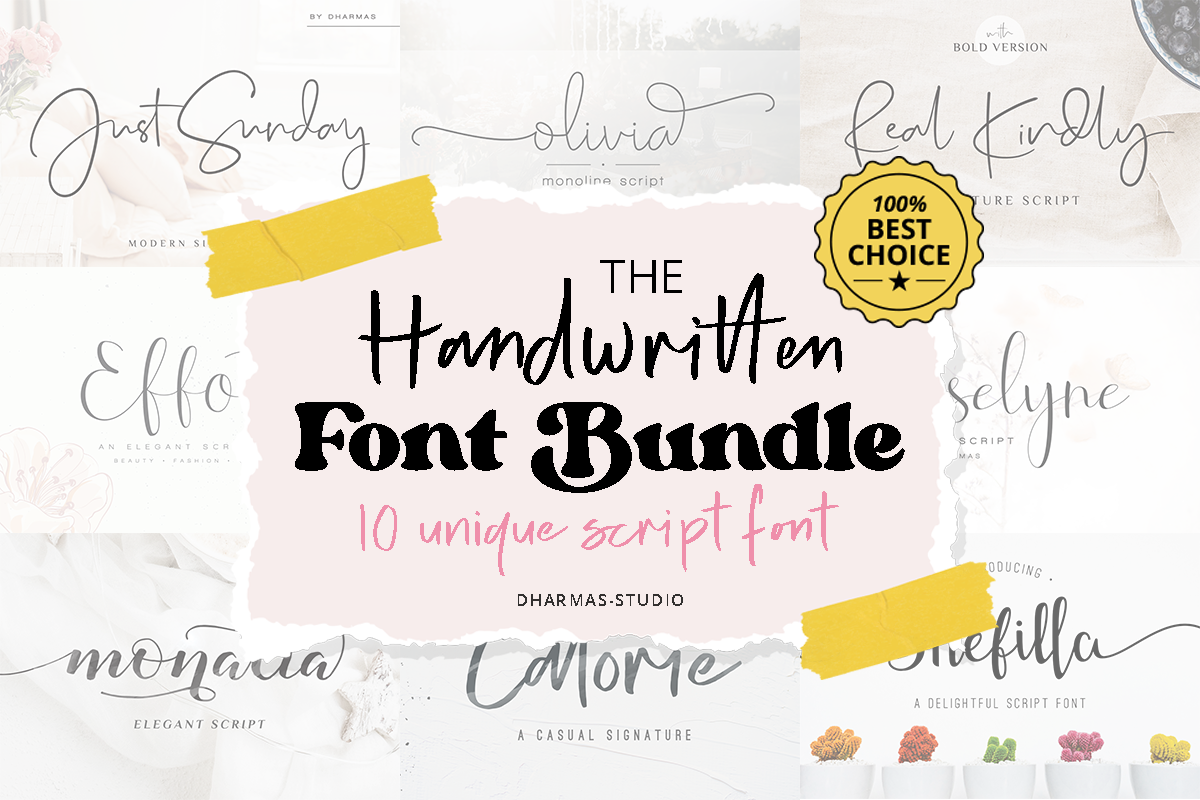
Handwritten Script Bundle Free Download is a carefully curated collection of elegant, flowing script fonts designed to add a personal, authentic touch to your designs. Featuring a variety of styles, from delicate and sophisticated to bold and expressive, this bundle is perfect for logos, invitations, branding, social media graphics, and more. Whether you're designing for a wedding, creating a custom logo, or working on a creative campaign, Handwritten Script Bundle Free Download offers you the flexibility to experiment with multiple script styles in personal projects before purchasing a commercial license. Add a unique, handwritten charm to your designs with this versatile and beautifully crafted font bundle.